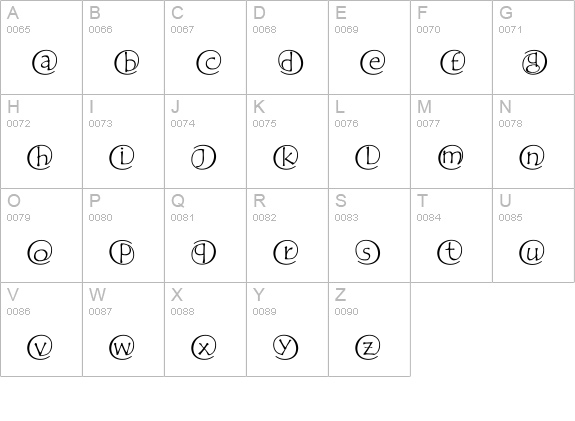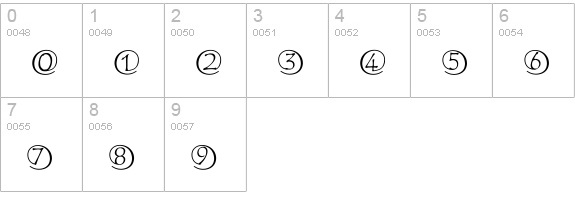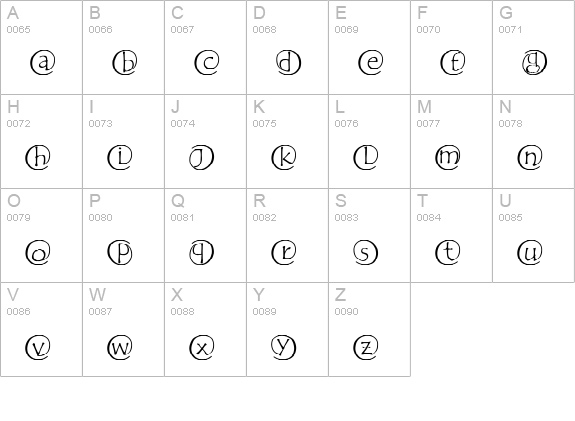
fab Chiocciole Font Details
Introducing the fabulous Chiocciole font, a true masterpiece that will captivate your imagination and elevate your design projects to new heights. With its intricate details and elegant curves, this font is the perfect choice for those seeking a touch of sophistication and charm. Chiocciole is not only visually stunning, but it also offers a wide range of versatility, making it suitable for various design purposes. Whether you're designing a logo, creating eye-catching headlines, or crafting beautiful invitations, Chiocciole will effortlessly enhance your work with its unique and distinct style. What sets Chiocciole apart is not only its extraordinary craftsmanship but also its accessibility. This stunning font is free, ensuring that anyone can enjoy its beauty without any restrictions. Thanks to FontsMarket.com, Chiocciole is freely available to download, making it easily accessible to designers, creatives, and enthusiasts alike. Embrace the beauty and elegance of Chiocciole as it effortlessly adds a touch of sophistication to your next design project. With its free availability at FontsMarket.com, there's no reason not to indulge in the timeless charm of this remarkable font. Let Chiocciole be your creative companion, and watch your designs come to life in ways you never thought possible.